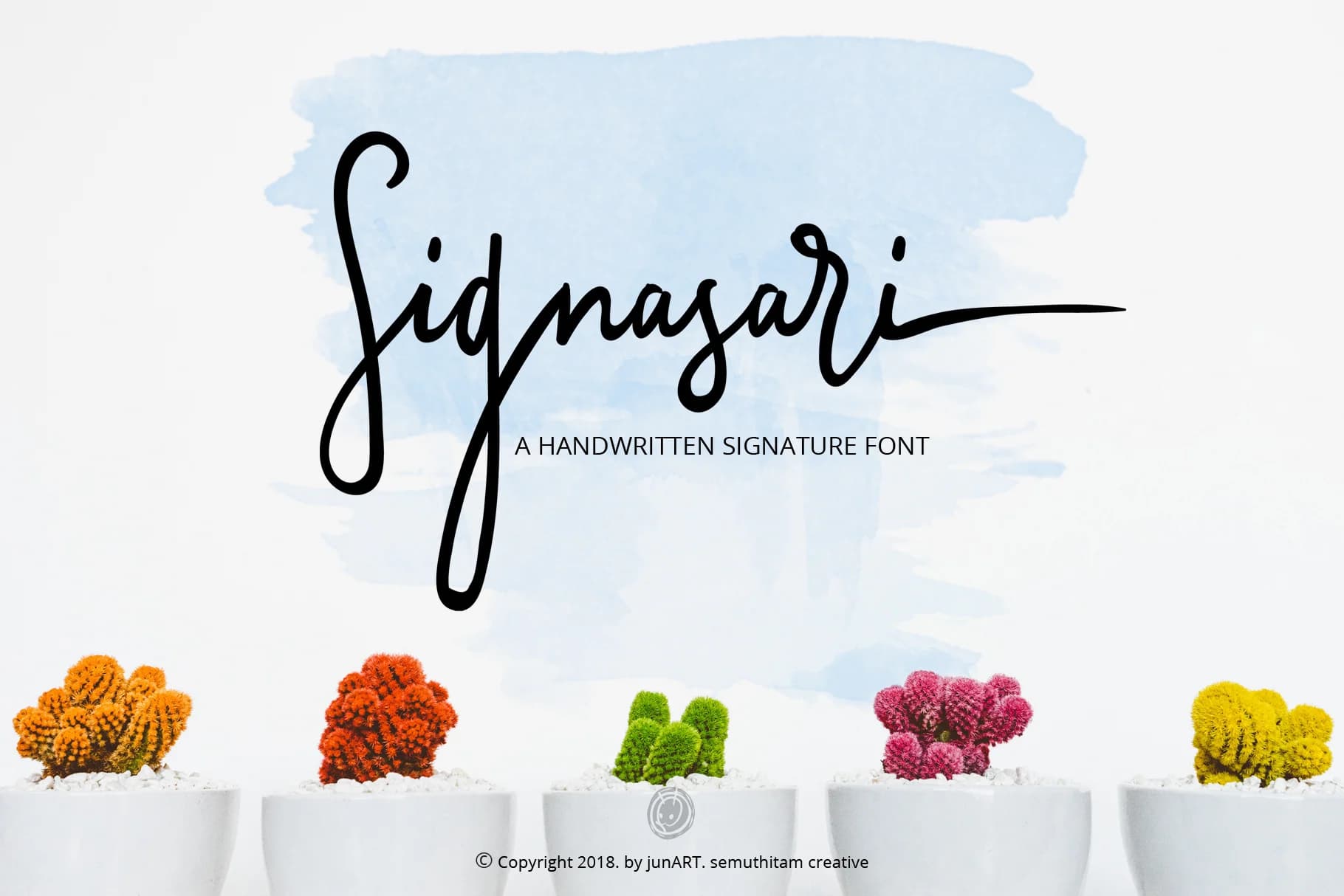
Signasari + Extras by semuthitam is a flowing handwritten script that brings refined elegance to typography-driven projects. Designed with natural rhythm and multiple style variations, this font strikes a balance between organic warmth and sophisticated clarity. The included swash alternates provide designers with flexibility to create visual emphasis and hierarchy without relying on additional decorative elements. Each letterform flows with intention, maintaining readability while conveying the kind of personal expression that makes designs memorable.
This versatile script excels in specific applications where authenticity matters: wedding invitation suites designed to feel personal and considered, artisan product packaging that communicates craft and care, custom skincare and wellness branding for beauty-focused businesses, and bespoke stationery collections. Signasari performs equally well as a strong headline or supporting display element, adapting beautifully across both digital and print mediums. The multiple variations make it simple to establish consistent brand voice while maintaining visual interest.
Signasari + Extras Font is a script font that shines as a display or heading face. Pair it with a clean sans-serif or serif font for body text β the contrast creates a clear hierarchy while the two styles stay balanced and easy to read.